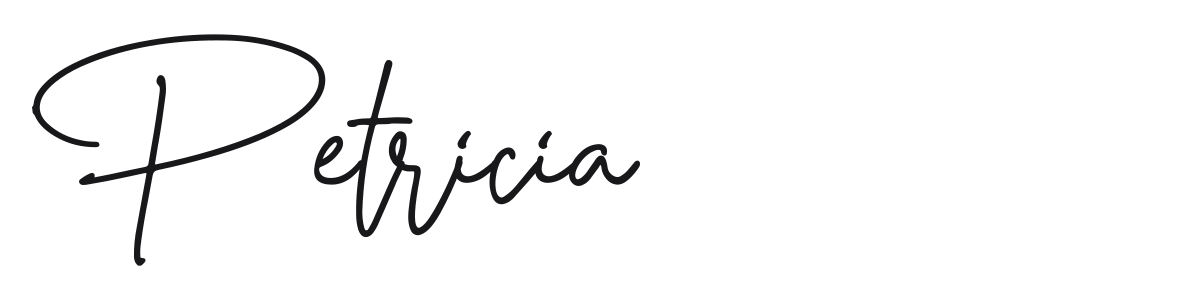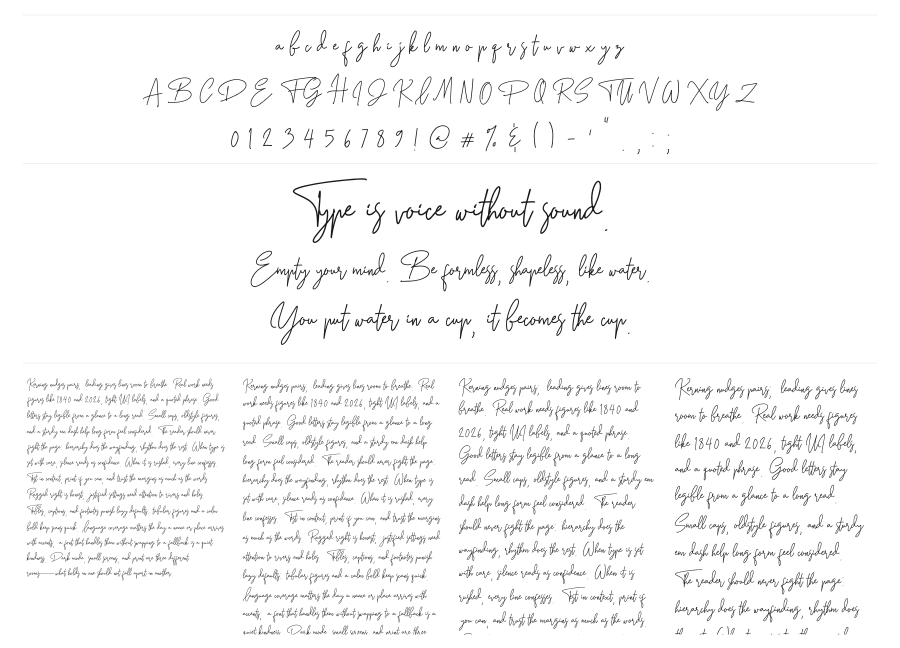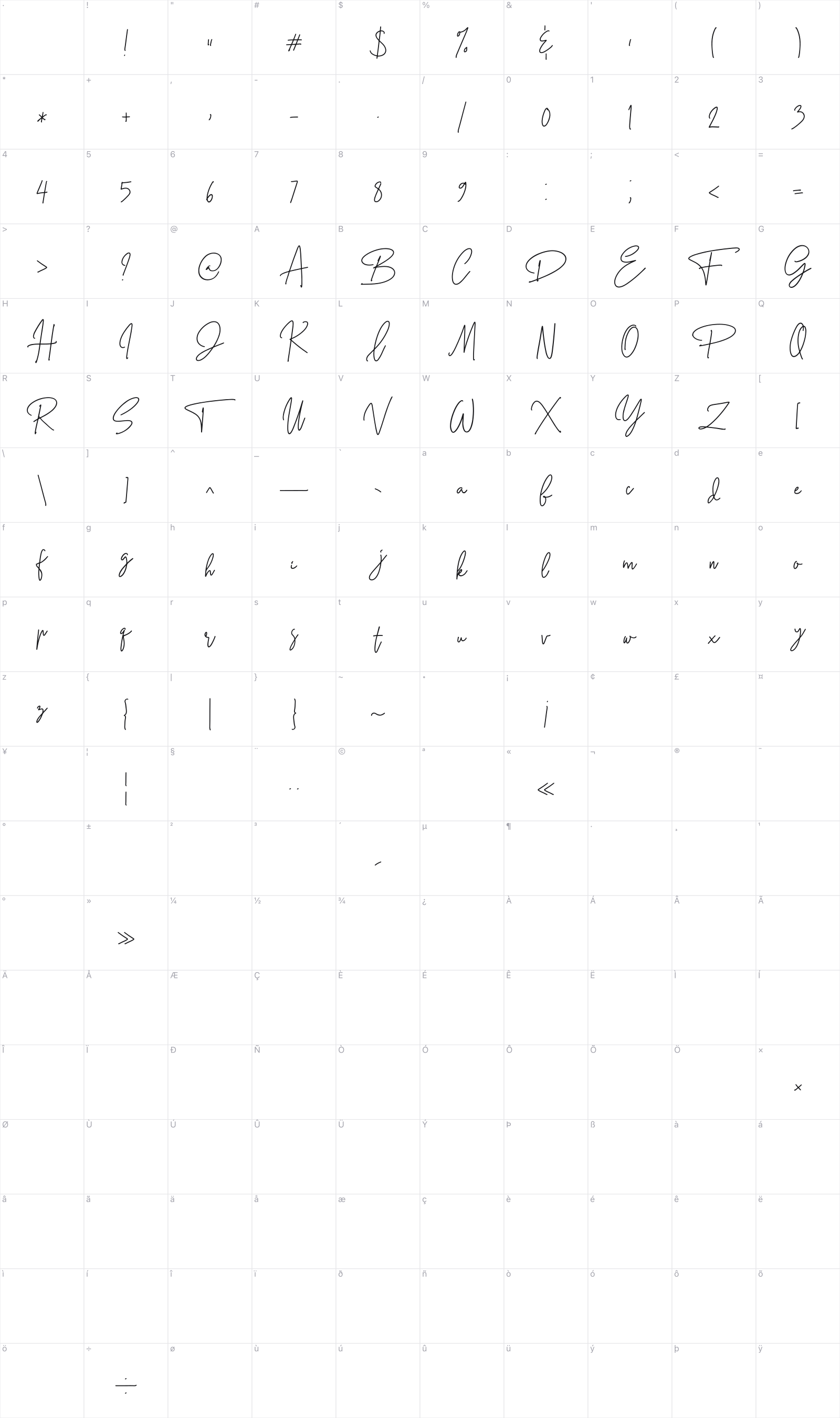
Petricia
Petricia is a flowing casual script with the loose, confident rhythm of a hand-signed note. Thin strokes and sweeping ascenders give it an airy elegance that sits naturally on wedding invitations, beauty branding, and lifestyle packaging. The light weight keeps things refined without tipping into stiffness.